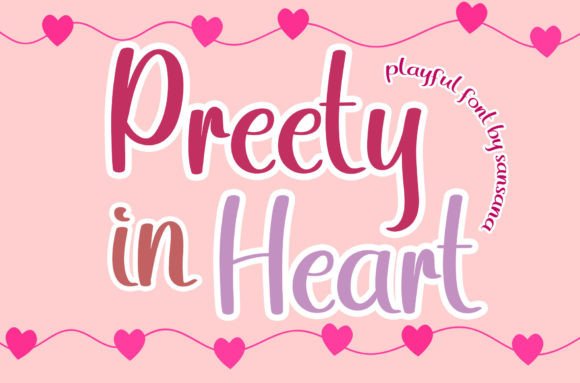
Introducing Preety in Heart - A Handwritten Font that Captures the Beauty of Simplicity
Welcome to the world of Preety in Heart, an enchanting handwritten font that captivates hearts with its charming innocence and organic strokes. Step into a realm of creativity where simplicity reigns supreme, inviting you to express yourself with an authentic and heartfelt touch.
Preety in Heart is not just a font; it's an artistic expression of heartfelt emotions. Its delicate lines and imperfect edges mimic the beauty of real handwriting, creating a genuine and relatable connection with your audience. Whether you're a seasoned designer or just starting your creative journey, Preety in Heart is your perfect companion for crafting meaningful designs that speak from the heart.
Imagine your social media posts, branding materials, and digital content adorned with Preety in Heart's captivating charm. Its versatility knows no bounds, effortlessly adapting to a multitude of design aesthetics. Let your words dance across the screen, handwritten with love and sincerity, leaving an unforgettable impression.
With Preety in Heart, you'll discover a treasure trove of creative possibilities. Create captivating chalkboard quotes that inspire and uplift, heartwarming teaching materials that engage young minds, personalized greeting cards that convey genuine sentiments, or whimsical invitations that set the mood for unforgettable celebrations.
Preety in Heart is your secret weapon to elevate your visual storytelling. Its innate ability to evoke emotions and create a personal connection will leave a lasting impact on your audience. Embrace the power of simplicity and authenticity, and watch your designs transform into heartfelt masterpieces with Preety in Heart.